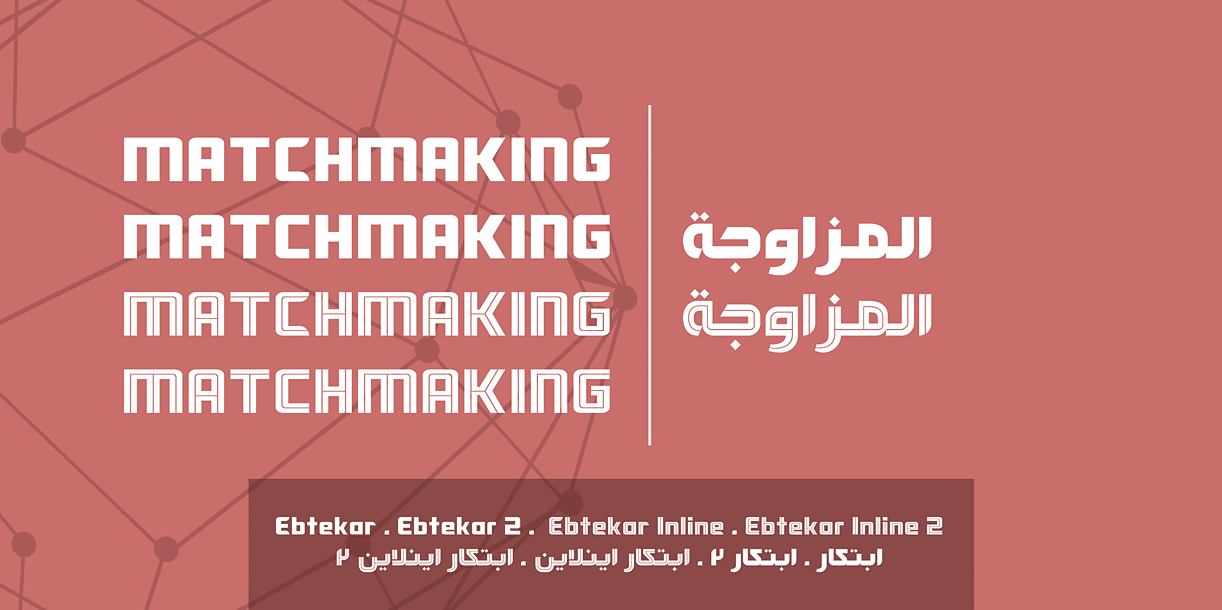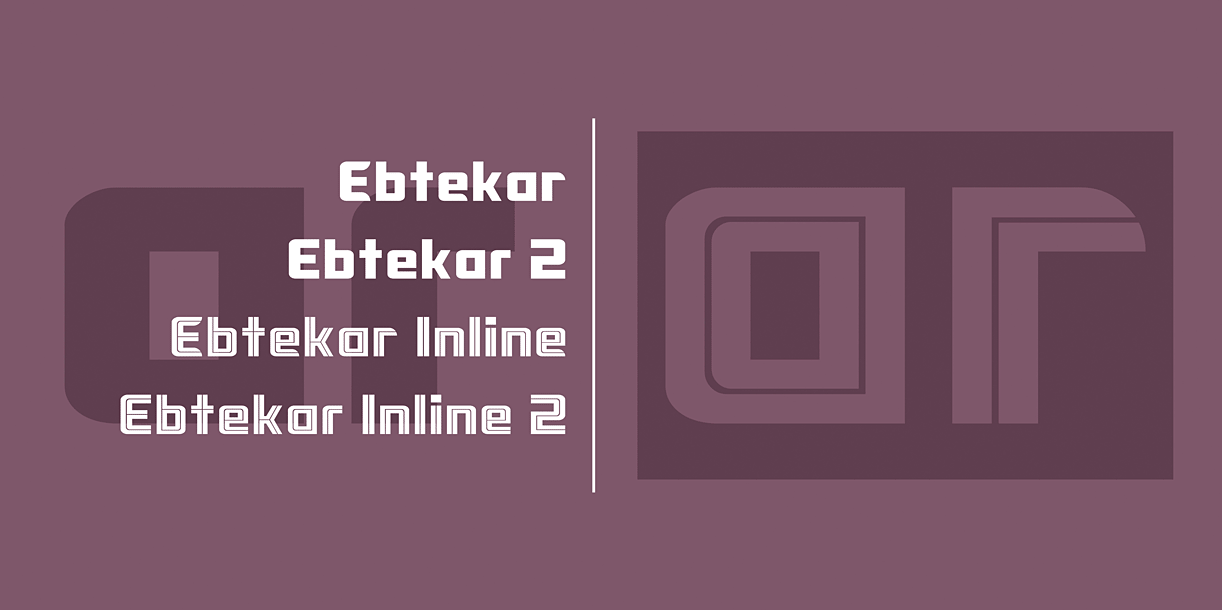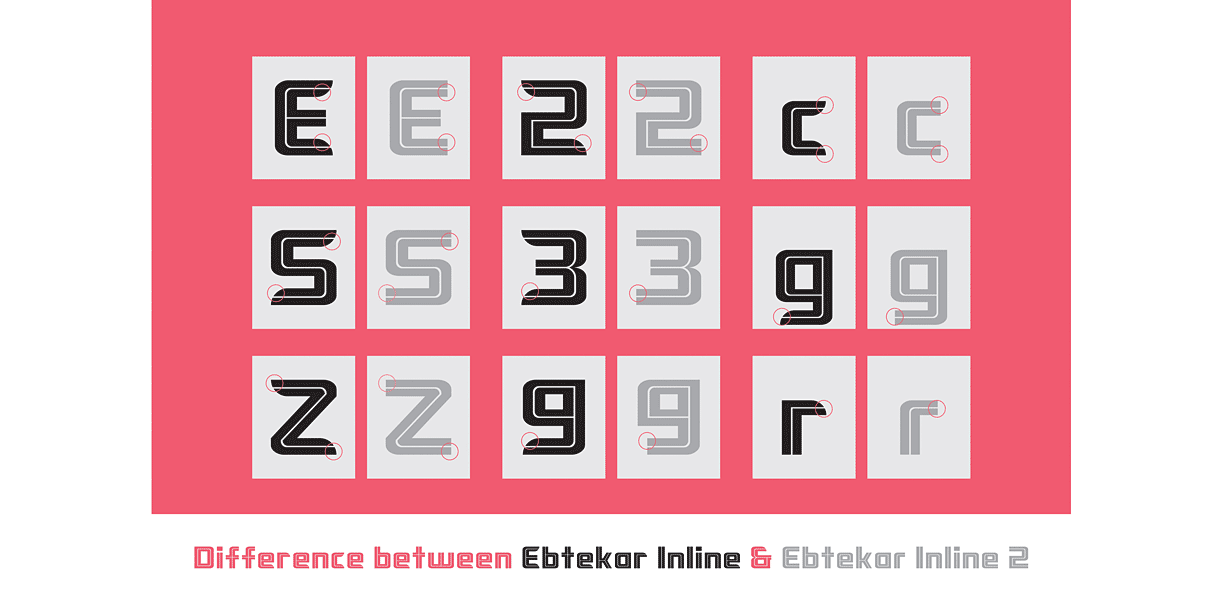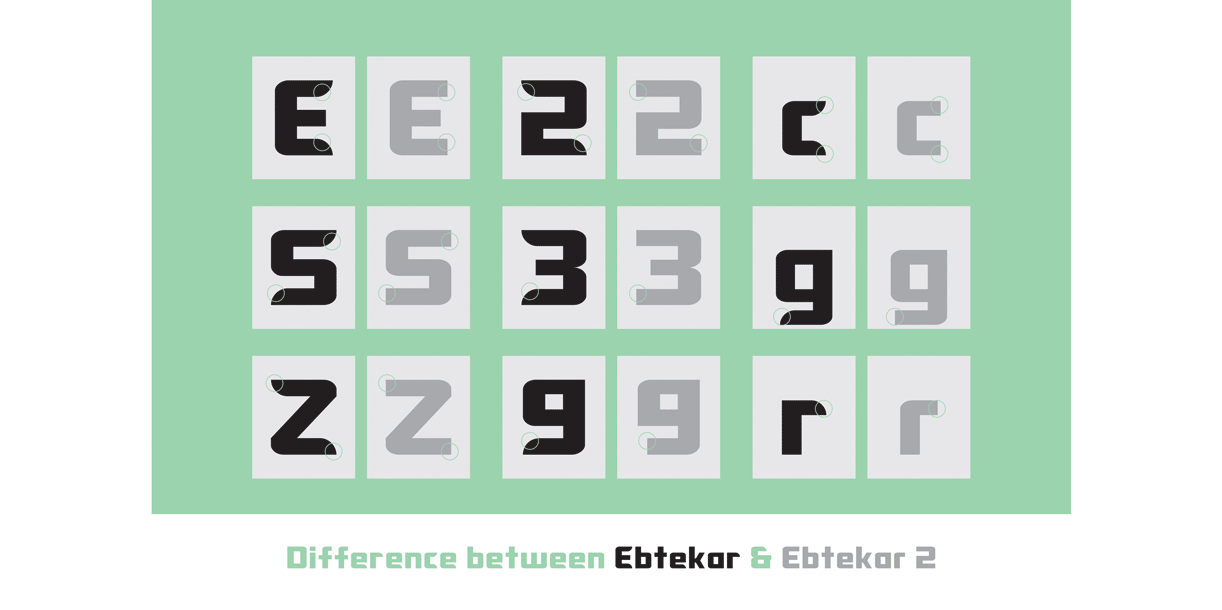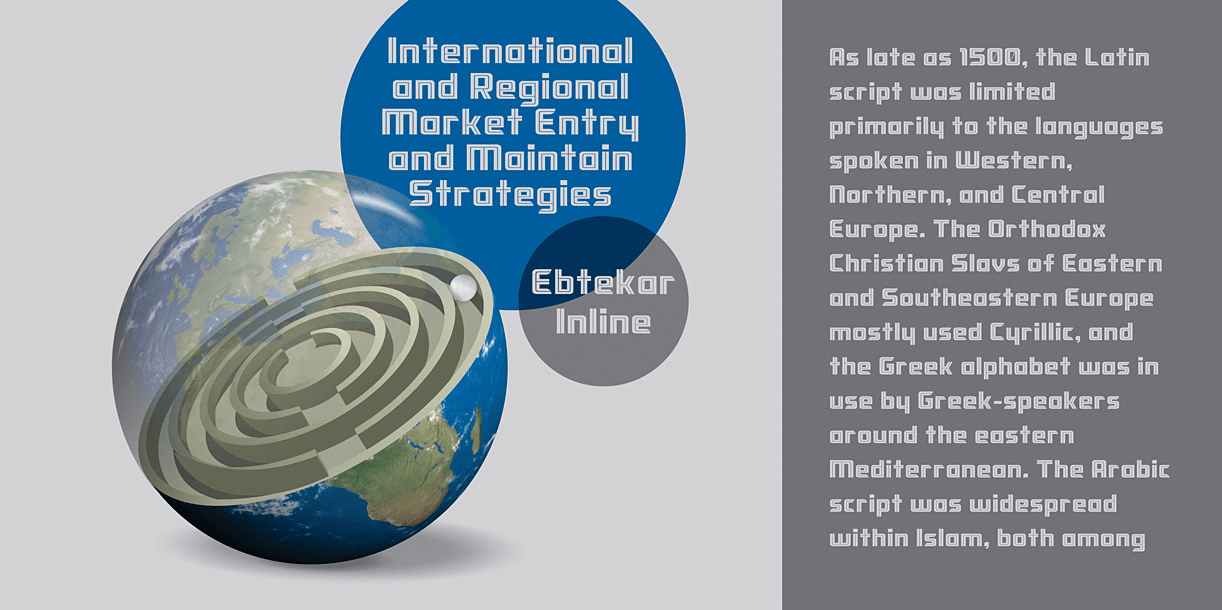
Ebtekar Pro
Font Family by Arman Khorramak
Ebtekar Pro is retro family display font. Its feature is ideal for Typographic Matchmaking Latin and Arabic scripts. Their geometric structure refers to more scientific, industrial and technological atmosphere. Character set of these sans serif fonts provide Latin, Arabic, Farsi, Urdu and Pashto languages.
Ebtekar Pro has two different styles; Normal and Inline. In Latin part, there are also two different types for each style with some practical changes.